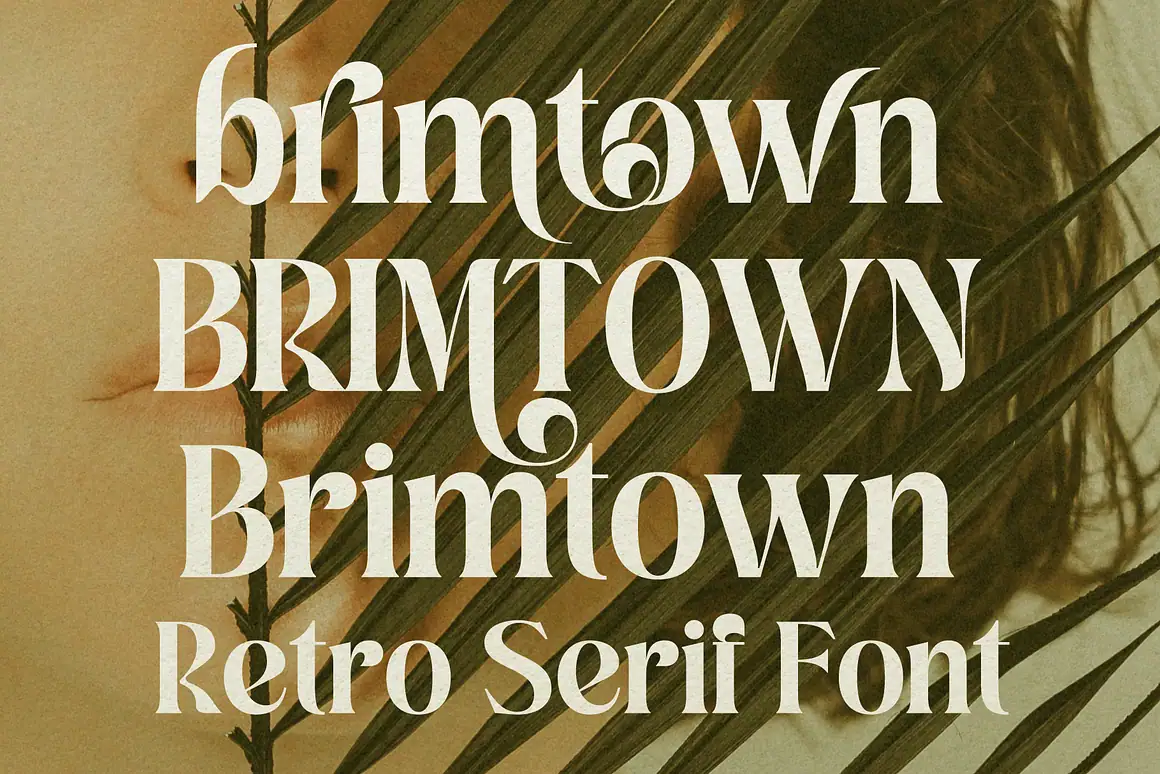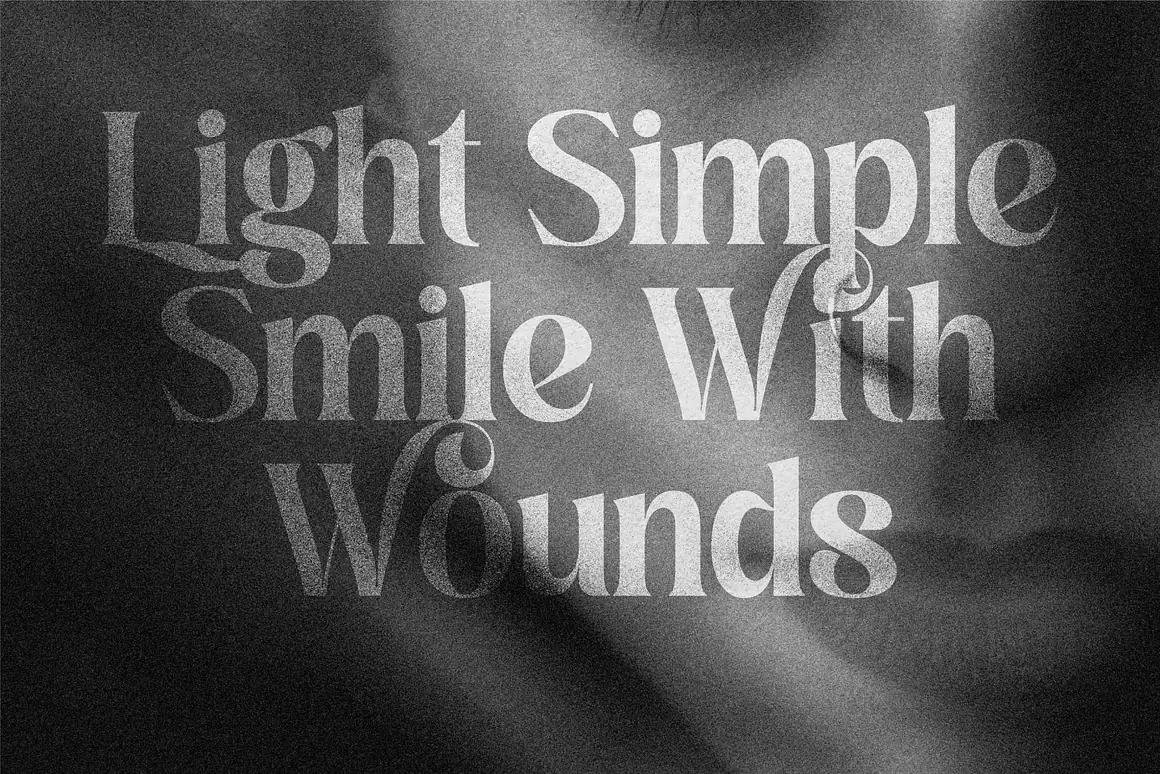
Brimtown Black - Retro Serif Font
Black
Brimtown – Retro Serif Font is a Serif font with a full set of uppercase and lowercase letters, multilingual symbols, numbers, punctuation, and ligatures. Brimtown – Retro Serif Font style for poster, magazine, beauty brand design with swash glyph suitable for your beautiful elegant design concept.
Features
* Standard glyphs uppercase and lowercase letters
* Numerals, a large range of punctuation and ligatures
* Lowercase letters include ending swashes